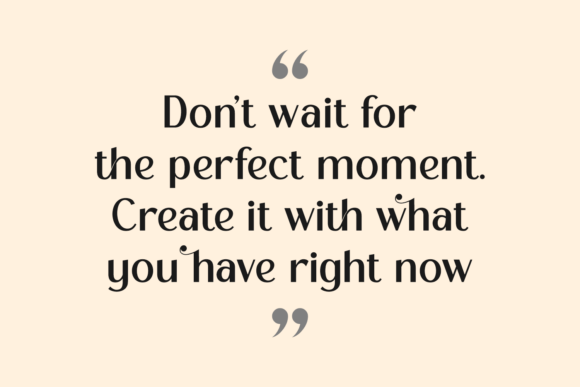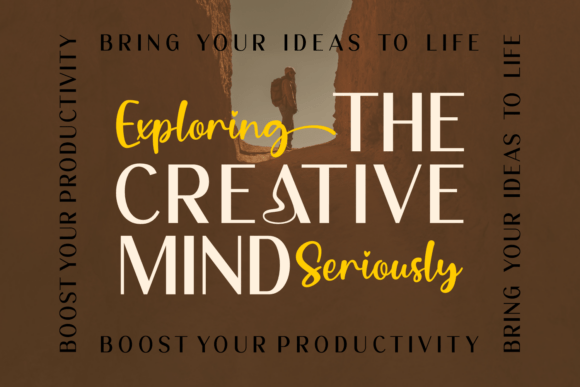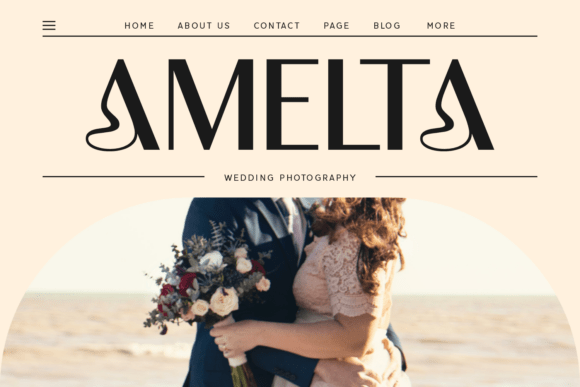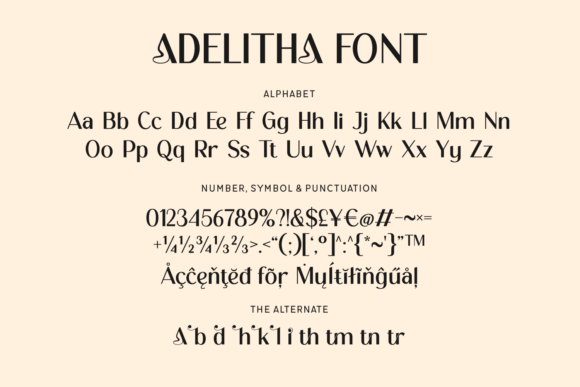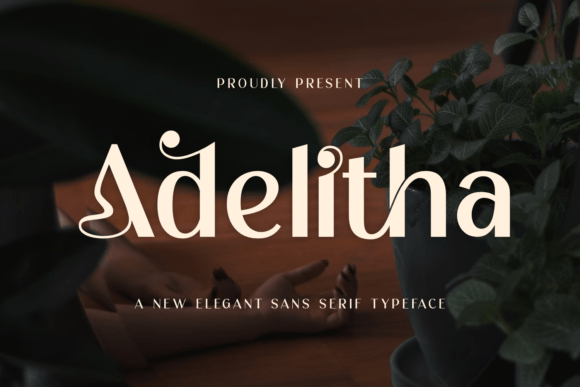
The Adelitha Font: A Modern Sans-Serif with Elegant Flair
I still remember the design project that led me to discover the Adelitha Font. I was working on a branding project for a luxury fashion client, and I needed a font that would convey sophistication and modernity. After hours of searching through font libraries, I stumbled upon Adelitha, and it instantly caught my eye. Its unique blend of classic readability and contemporary flair was exactly what I needed to elevate my design.
• ✨ Elegant and modern design: Adelitha’s sans-serif style is both sleek and sophisticated, making it perfect for high-end branding projects.
• ✅ Excellent legibility: The font’s subtle curves and extensions enhance its readability, even at smaller font sizes.
• 💡 Unique character features: The uppercase letters, in particular, have a distinctive flair that sets Adelitha apart from other sans-serif fonts.
• 🤔 Limited use of bold weights: While Adelitha has a range of weights, the boldest options can be a bit overpowering. Use them sparingly to avoid overwhelming your design.
• ⚠️ Glyph compatibility issues: Some glyphs may not work seamlessly across all platforms or software. Be sure to test the font thoroughly before finalizing your design.
The Adelitha Font was designed with the goal of creating a modern sans-serif that would blend classic readability with contemporary flair. The designer, inspired by the elegance of luxury fashion brands, aimed to craft a font that would be both sophisticated and legible. The result is a versatile typeface that can be used across a range of design applications, from branding and advertising to editorial and digital design.
What is the Adelitha Font best suited for? The Adelitha Font is ideal for luxury branding projects, high-end advertising, and editorial design where elegance and sophistication are key.
Is Adelitha suitable for body text? Yes, Adelitha is designed to be legible and can be used for body text. However, it’s best used in larger font sizes or for shorter paragraphs.
Can I use Adelitha for digital interfaces? Yes, Adelitha can be used for digital interfaces, but be sure to test its legibility on various devices and screen sizes.
Does Adelitha support OpenType features? Yes, Adelitha supports OpenType features, including glyphs and stylistic alternates. Access these features through your design software’s typography settings.